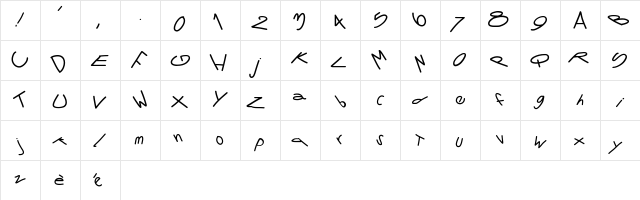
Complete PWTornado Medium glyph index. Displaying only characters natively supported by PWTornado Medium font.
PWTornado is a composed and adaptable typeface that performs quietly and consistently across a wide range of design contexts.